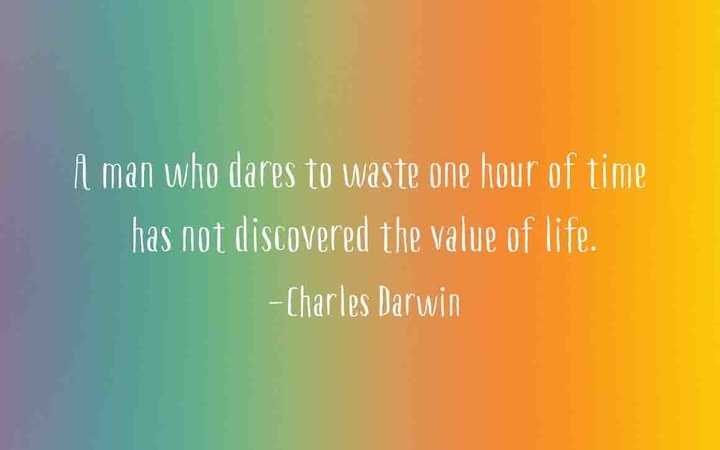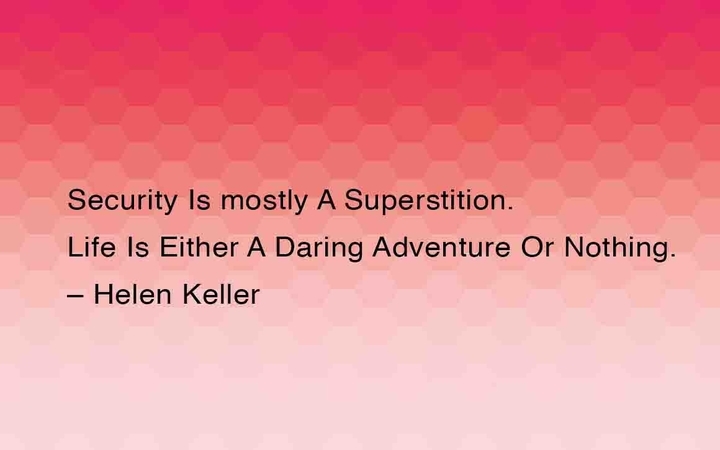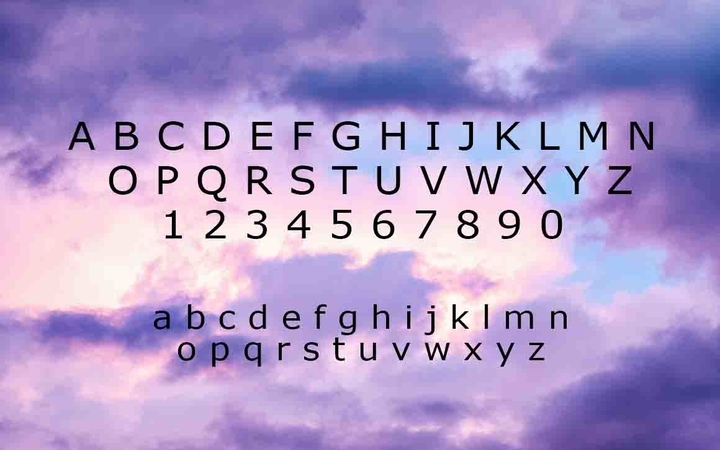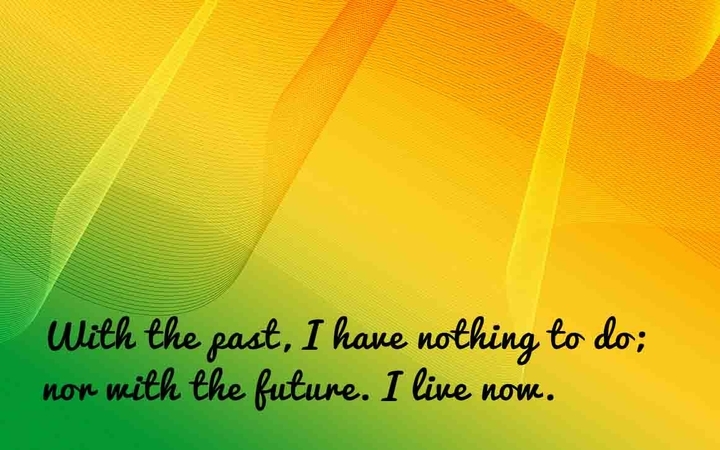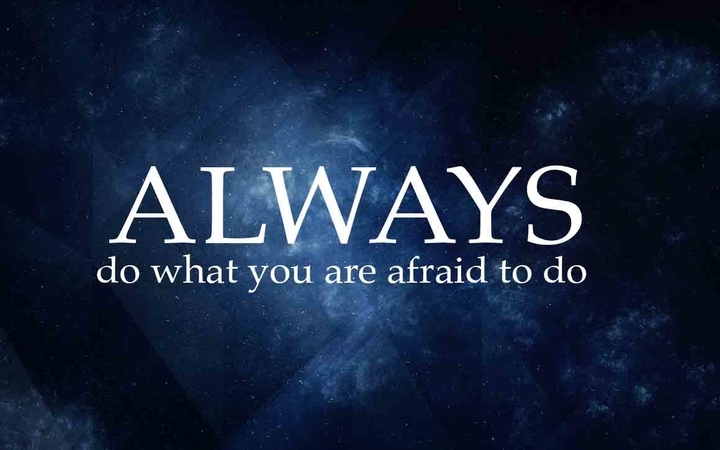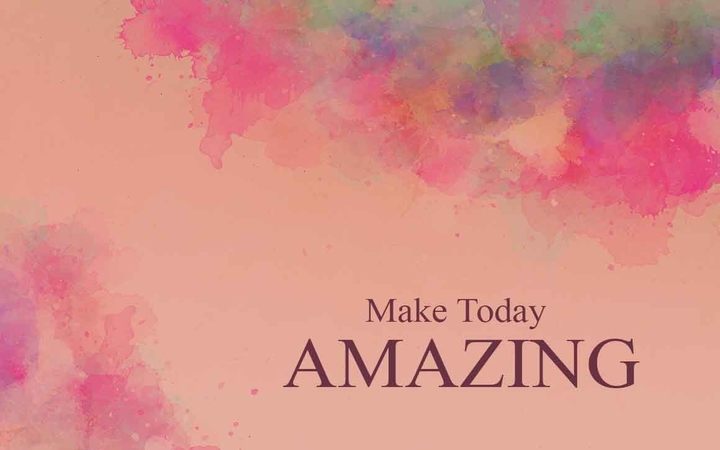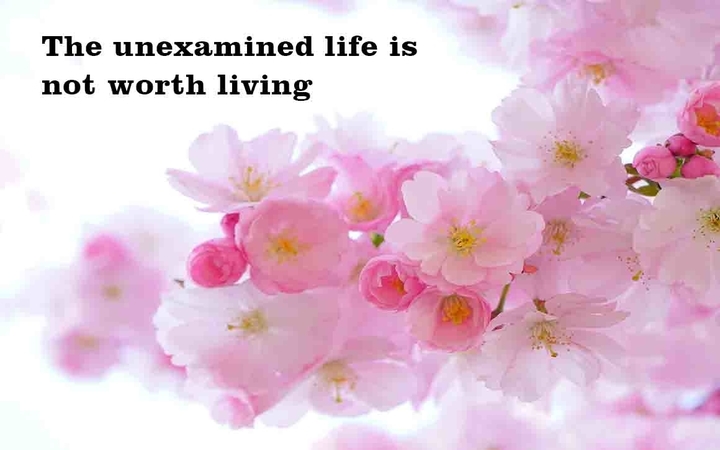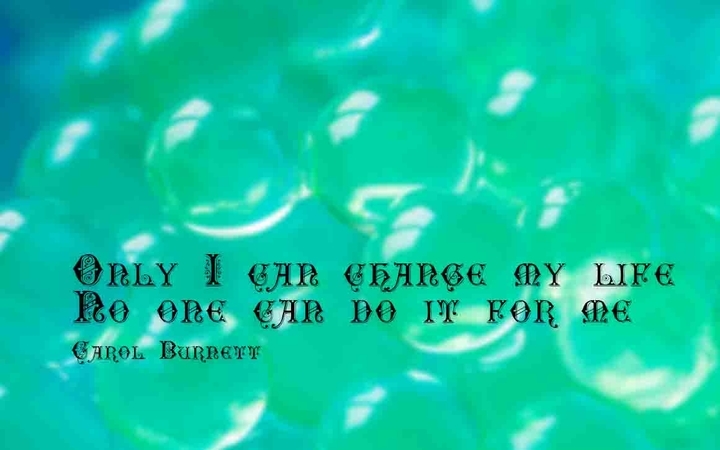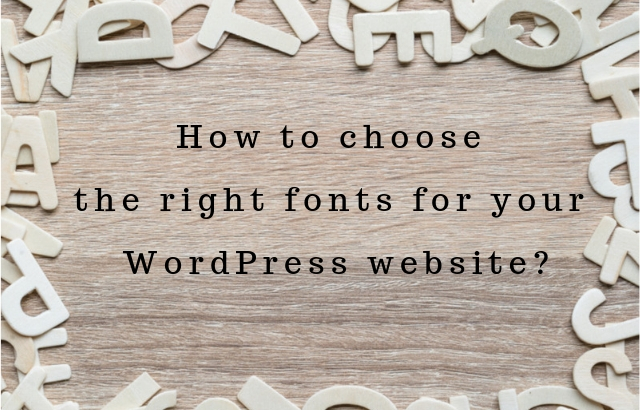
Choosing the Right Fonts for Your WordPress Website
You don’t have to be a typography nerd to select font themes. It’s as simple as understanding the rules and experimenting with font styles. A lot of consideration goes into website design and font selection. There are thousands of WordPress fonts that you can use in your web design.
When choosing the right font theme for your WordPress site, you will be answering the following questions:
• What kind of personality do you want to reflect?
• What do you want your readers to feel when they visit your site?
If you are new to typography, then it could be hard for you to choose the right fonts for your WordPress website. Continue reading to learn how to make the proper selection of fonts that pair well with your web design.
Your Font Choice Matters And This Is Why.
Font selection is a component of readability which falls under presentation. The clarity of the font you use is an essential part of website design. There is more than clarity when it comes to font selection. Besides point size, weight and color, there is also the aspect of typeface or style.
The fun part about building a WordPress website is putting your personality on it. There are different ways to typography get your personality on your site. The font you use conveys different messages to different kind of people. Your readers may judge your character based on your font theme. Therefore, there is a need to pick and choose a WordPress font that fits your brand and personality.
Similar to the content on your website, fonts too deliver both messages and feeling to your reader. Therefore, it is essential to pick the right type of font. Font style is just as important as the words and colorful images you post on your website. If the reader is not able to distinguish between the characters on your site, then it would be hard for them to find meaning from your content.
Readability matters since our primary goal is writing is to convey information and convert readers into buyers. The type of font you use should help your readers distinguish and recognize the characters and words in your website text. Therefore, you have to make the content on your WordPress website readable to keep your readers engaged up to the end.
The typeface of a font can also affect the legibility of your website text. The readability of your content also depends on your reader’s visual acuity. Depending on the target audience and their level of vision, there are tons of fonts to use to meet their legibility needs.
The font style you choose should be able to bring out a high contrast between the background and the characters on your website. A busy or textured site should use a font theme that allows for the recognition of the fine details in the letterforms.
Your choice of font theme can also affect your SEO since Google’s algorithm considers readability as a factor of ranking.  Without legibility, when writing for humans, it is hard for you to measure the readability of the content since the characters on the words are difficult to distinguish.
The Psychology of Fonts Selection
Most people associate font styles with different emotions and feelings. Therefore, the kind of font you use may evoke different moods on your readers.
There are three things that you must capture in your WordPress fonts choice:
• Emotions
• Feelings
• Association
Five primary groups distinguish the font styles that are still widely accepted: scripts, decorative, serifs, slab serifs, and Sans Serif.
Font categories:
Serif
The serifs font dates back to the Roman Empire era, but it came to fashion in the 15th century, perhaps due to the fall of the empire. Other popular classifications within this category include Old Style, Transitional, Classical and Neo-Classical.
The serif finds its use in printed materials due to its readability: The human eye can easily recognize its shapes. However, serifs are difficult to display on lower resolution of computer screens. It is suitable for use in website text as headings. The serif type font is best with the modern high-resolution monitors.
Example of Serif includes Times Roman, Georgia, Palatino and among others.
Slab Serif Fonts
These are the louder versions of the serif font which became popular from the 19th century. This font was useful in developing, pamphlets, posters, and billboards. The Slab serif fonts have evolved, now they can be applied in longer paragraphs of text. Brands that deal with outdoor activities use this style. It brings a vintage vibe in any web design work.